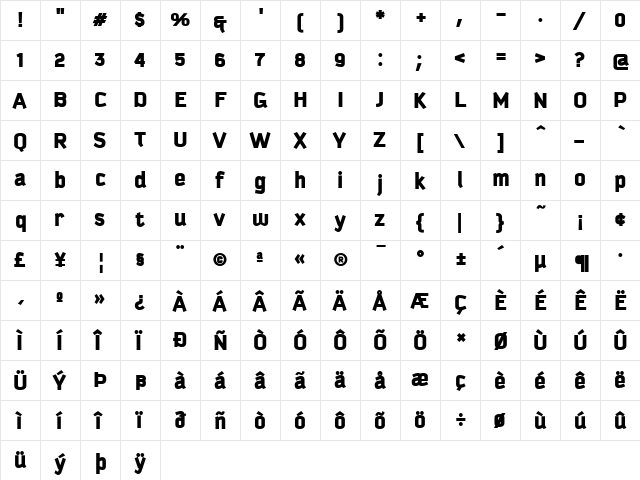
Kautiva Black Regular
Design Context for Kautiva Black Typeface
Kautiva Black is a composed and adaptable typeface that performs quietly and consistently across a wide range of design contexts.